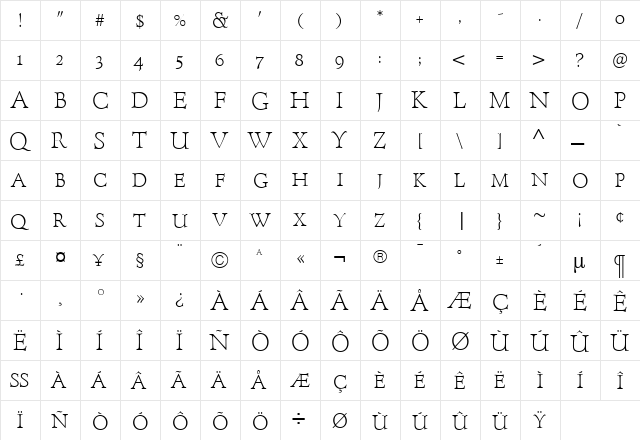
ForumTitlingLightOldStyleFigs Roman
Design Context for ForumTitlingLightOldStyleFigs Typeface
ForumTitlingLightOldStyleFigs brings classic typographic sensibility to the table — its serifs and measured letterforms reflect centuries of print heritage. The delicate stroke weight brings airiness and refinement to layouts.
Pro Tip: Set ForumTitlingLightOldStyleFigs at slightly larger body copy sizes than you would a regular-weight serif to compensate for its delicate stroke contrast.